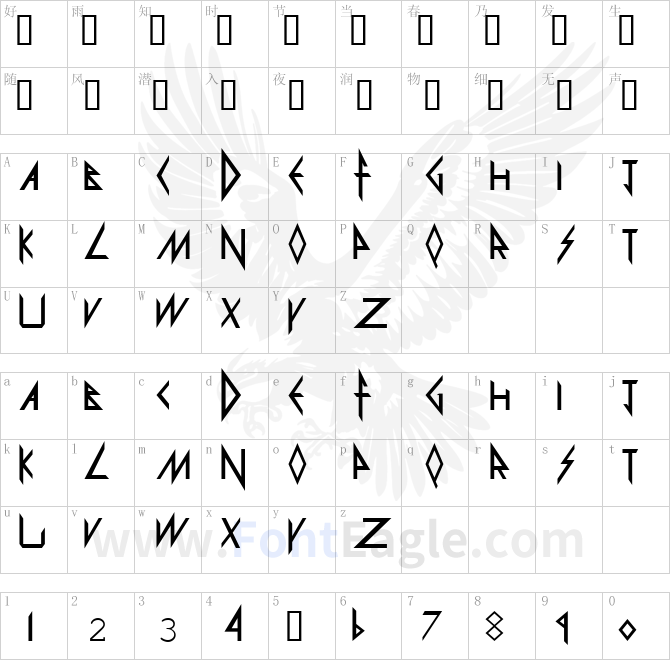
- Font name:Def Leppard
- Font Subfamily ID:Def Leppard
- Font Full Name:Def Leppard
- Font Version:Hanspeter Niederstrasser V1.0 11/20/97
- Postscript:DefLeppard
- Font Copyright:Created by Hanspeter Niederstrasser. The font format and style is copyright Bludgeon Riffola.